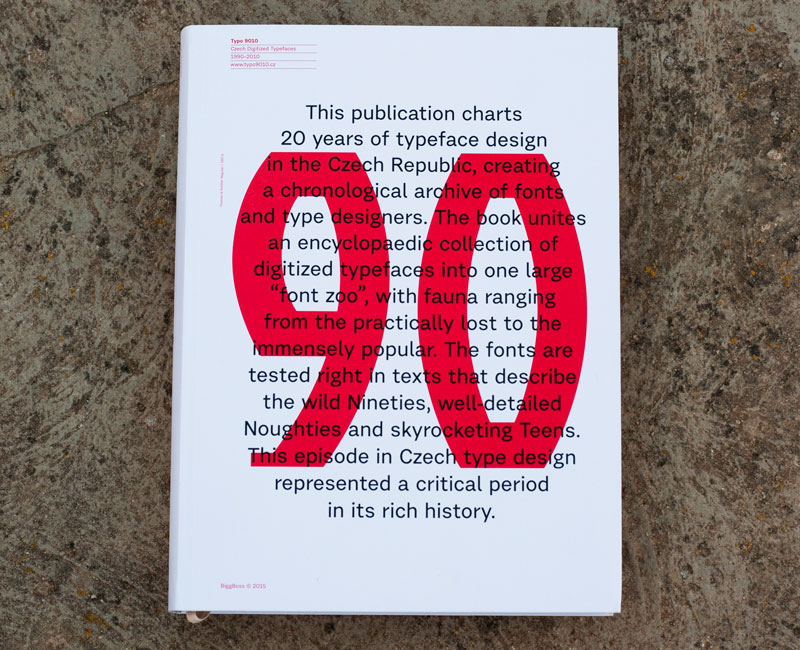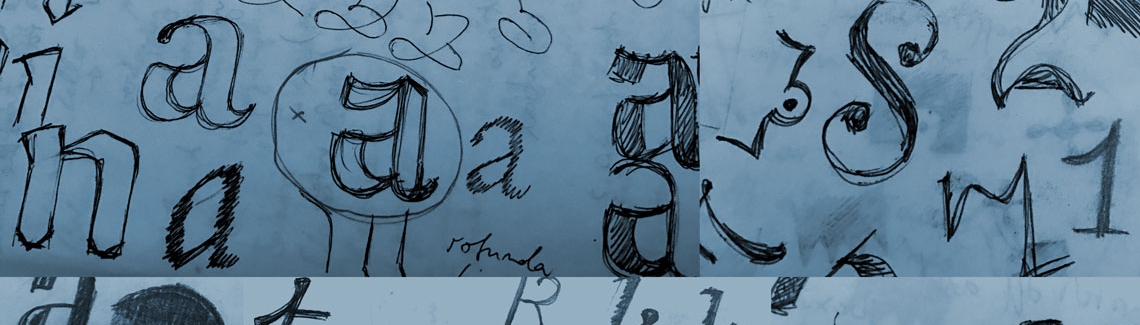
Why do we need more typefaces?
An effective way of weakening this question usually asked by lay persons is to pose another question, such as, “Do we have enough music, or clothes, or art?” In the same spirit, I agree with Cyrus Highsmith’s reply, “You know, I heard the same thing about people!”
Type design is a carrier of our culture and is subject to developments and trends, even moreso in this world of constant movement and change. Type matters more than ever, with increasing self-expression and communication channels, different media, and mobile devices that rely heavily on typography for information and coherent visual identity.
The digital fonts and desktop publishing era has irreversibly changed the process of designing typefaces. The internet and the growing necessity of multilingual, and often multi-script, information pieces have significantly increased the complexity of the type design profession. At the same time, design tools have become faster and easier to use, allowing for a flood of digital typefaces in the market. A significant amount of them are novel, short-living bursts of creativity though, often technically and aesthetically flawed. I see no harm in them. They don’t waste resources or energy other than the author’s own and they are part of our digital culture, manifested in free, open-source tools and the accompanying enthusiasm of users and creators alike. There is a large gap between the occasional amateur who would create a typeface with limited knowledge and the professional type designer who is providing a highly specialised service. These are two extremes that should be differentiated. Font piracy is an obvious issue here, but that goes beyond this essay.
Typography is ubiquitous and often taken for granted. Most people don’t think about it as it is “just there” in their everyday lives, fulfilling its many roles. I believe that this existence in the background is one of the reasons why the, “Do we need more typefaces?” question comes up so often; although it is undoubtedly a valid question from the reader’s point of view. The biggest factor in graphic design is communication and typography is the main contributor. So when a graphic designer begins to wonder about the importance of typography, then they really question the essence of their profession and therefore might want to think again. One has to be prepared to leace their established comfort zone with prescribed recipes and instead explore new ideas and concepts.
Using new typefaces is part of this.
motivations for creating new fonts
Nevertheless, a type designer should, at least to some extent, think about the driving forces behind creating new fonts. Perhaps one of the most obvious reasons is a personal interest in letterforms and the desire to experiment with them. Taking the letterforms to the extreme and back and seeking new shapes can even become an obsession. This kind of drive already flourished in the Czech Republic after 1918, when the country became independent and new opportunities became available. New publications, book designs, and graphic arts boomed under the umbrella of nationalism and the quest for Czech visual expression. Increasing confidence and the search for national identity enhanced the evolution of the Czech book craft along with type design. A small group of artists endeavoured to address the present deficiencies and to establish a sovereign Czech style. Names like Vojtěch Preissig, Karel Svolinský, Karel Dyrynk, Jaroslva Benda, and later Oldřich Menhart come to mind. They recognised the demand for typefaces to be able to highlight the intrinsic peculiarities of Czech handwriting. A large part of their endeavour was to create balanced diacritics, so crucial for the Czech language.
A similar motivation can be ascribed to the wave of typefaces created after 1990 in the “new” Czech Republic. Not only was there a need to express the freshly gained freedom from the political regime and its visual uniformity, but it also provided tools for the digital era, after photo composition had quickly become obsolete. The majority of the fonts from this era are no longer used — but this is irrelevant since they influenced the visual environment and helped to create a distinctly different visual culture from the previous years.
New technologies, such as the introduction of personal computing, and the resulting radical change of graphic design and type-making, are good reasons to develop new typefaces. In the case of Eastern Europe, language specific requirements also came into play. In the early 1990s barely any digital typefaces included well-crafted accents. Global markets and necessary language support, together with technological developments, are now more than ever a driving force behind the creation of new fonts. We have high-resolution screens, tablets, e-book readers and many other mobile devices that pose new demands on typefaces. Publications tend to exist in both printed and digital format simultaneously, with portable devices demanding flexible layouts and brand coherence. Here the typeface has to perform well on all the different rendering devices without difficulty or adjustment. The best way to ensure this is to create a bespoke typeface. It is, along with the company’s logotype and colours, a crucial component of the corporate identity. The typeface communicates with the customer on a subtle but important level by conveying the company’s core message and enhancing its recognisability.
There are several reasons for the growing demand of tailor-made typefaces: they share the same language as the rest of the visual program of a company; guarantee the process of exchanging information both internally and externally; and allow for the company’s expansion with no extra licensing charges. In global markets with their broad diversifications of media, having a distinct typeface can be invaluable. This practice, so common in places like the United States and the United Kingdom, has found its footing in the Czech Republic as well, albeit with some delay and a greater need to convince potential clients. There are good examples in the Czech Republic though, and the creativity of Czech designers and students is still growing and flourishing. Indeed, the growth of independent foundries globally as well as the mid-sized firms is a good indicator for the increased appreciation as well as the need for good typography.
move out of the comfort zone
For a small foundry, it is important to establish its own unique portfolio of typefaces, ideally with a particular focus, e.g. text typography, script type, historical revivals, etc. Commercial decisions can lead to the development of new typefaces and as a small business one needs to respond to and, in the best case scenario, inspire trends within the industry. Quality control and an aim to contribute original solutions rather than plagiarism should be the pillars of new designs. Some of the best solutions are mixtures of personal exploration with an understanding of historical contexts and abstract concepts.
Private interests, technical developments, bespoke client requirements, and commercial decisions are all reasons for creating new typefaces. The last item on this list is the preservation and improvement of historical typefaces, which are still relevant today or serve as a direct source for inspiration. There are many grades of authenticity in revivals and it is worth questioning how true one should stay to the original. Typefaces from the 20th century, during hot-metal times, were restricted by technical requirements of production. For example, italic and bold styles for Linotype machines had to sit on the same widths as the regular style. This lead to “unnatural” shapes, which were a necessary compromise. These concessions can be rectified by reinterpreting the analog designs and adapting them digitally. From my point of view, revivals have their place and reason, but it is more interesting to develop contemporary ideas.
We can conclude that the five-typeface-credo is a mindset of designers from the 1950s and ’60s that was rooted in technical limitations as much as ideological ones. It has no place today, and I encourage people to contact type designers and foundries to ask for advice, get additional information, and generally involve foundries at an early stage of the project. Their expertise can help all designers to move away from the ordinary and toward originality.
This article was originally written in 2012 for the book TYPO9010, that shows all the digital typefaces produced by Czech designers during a very significant 20-year period, 1990–2010.
Title page of TYPO9010.